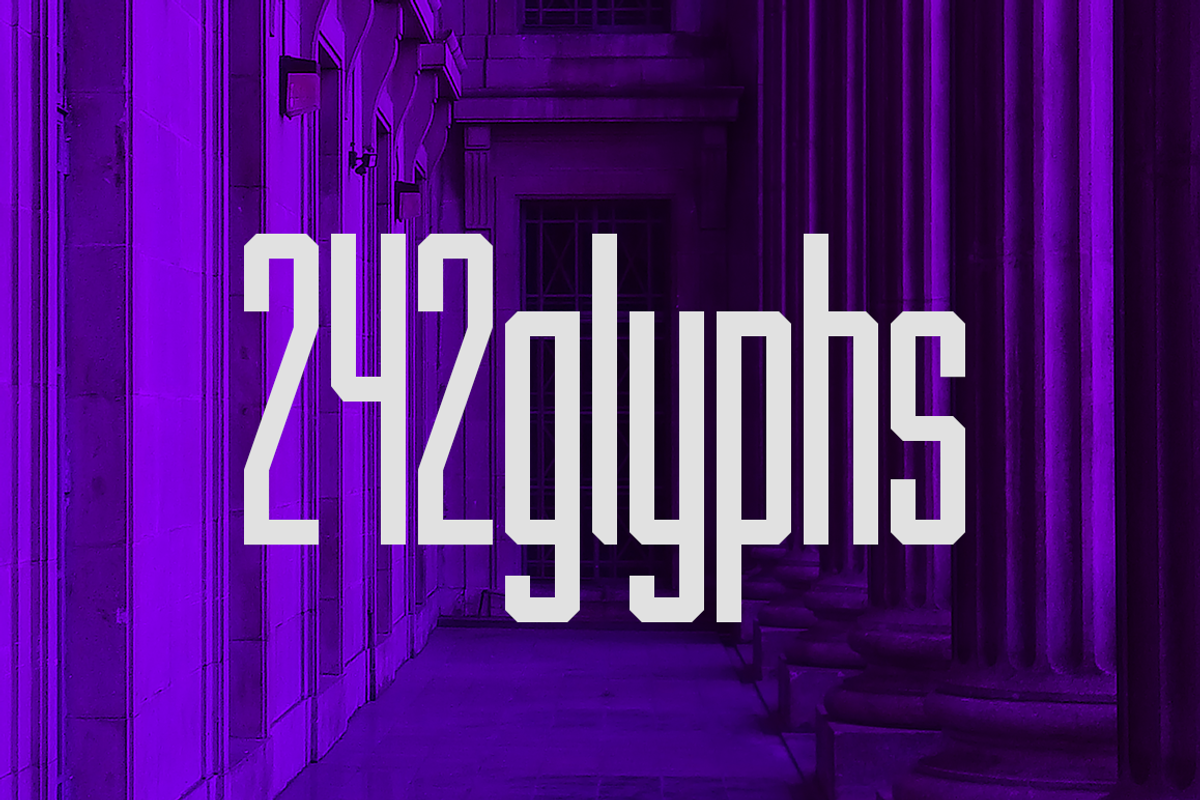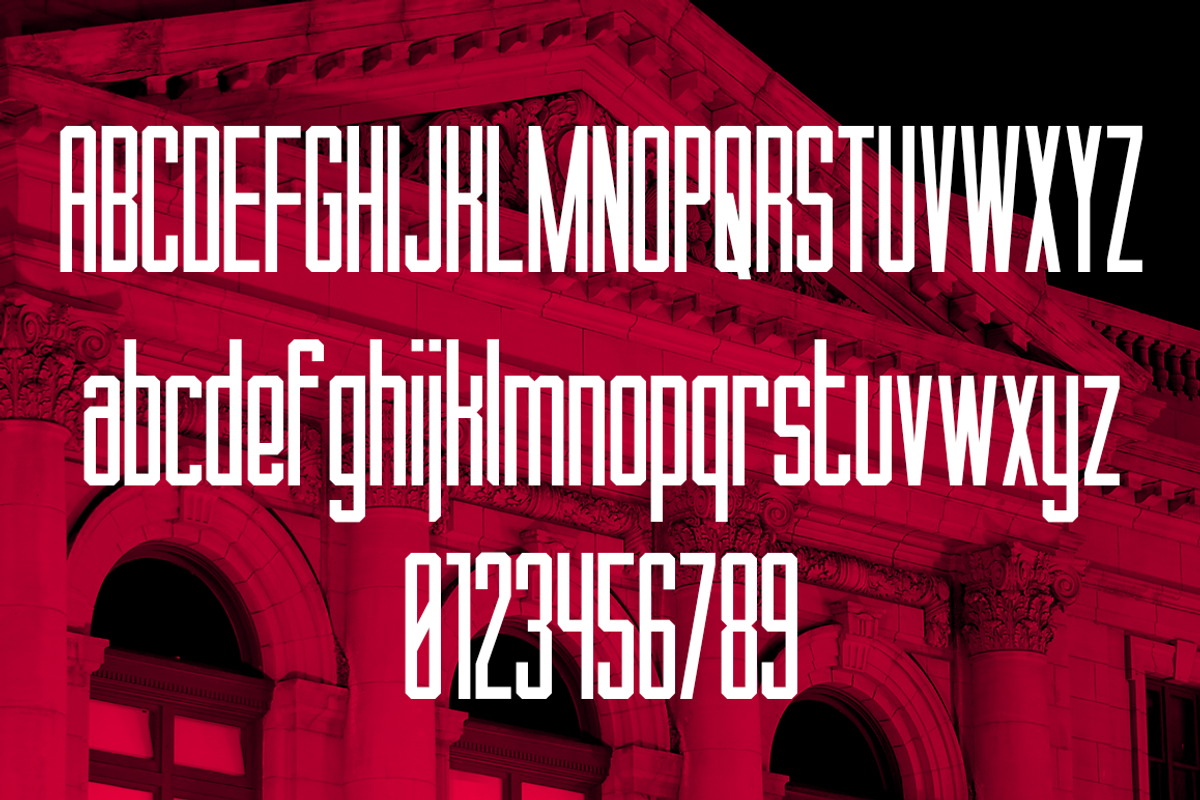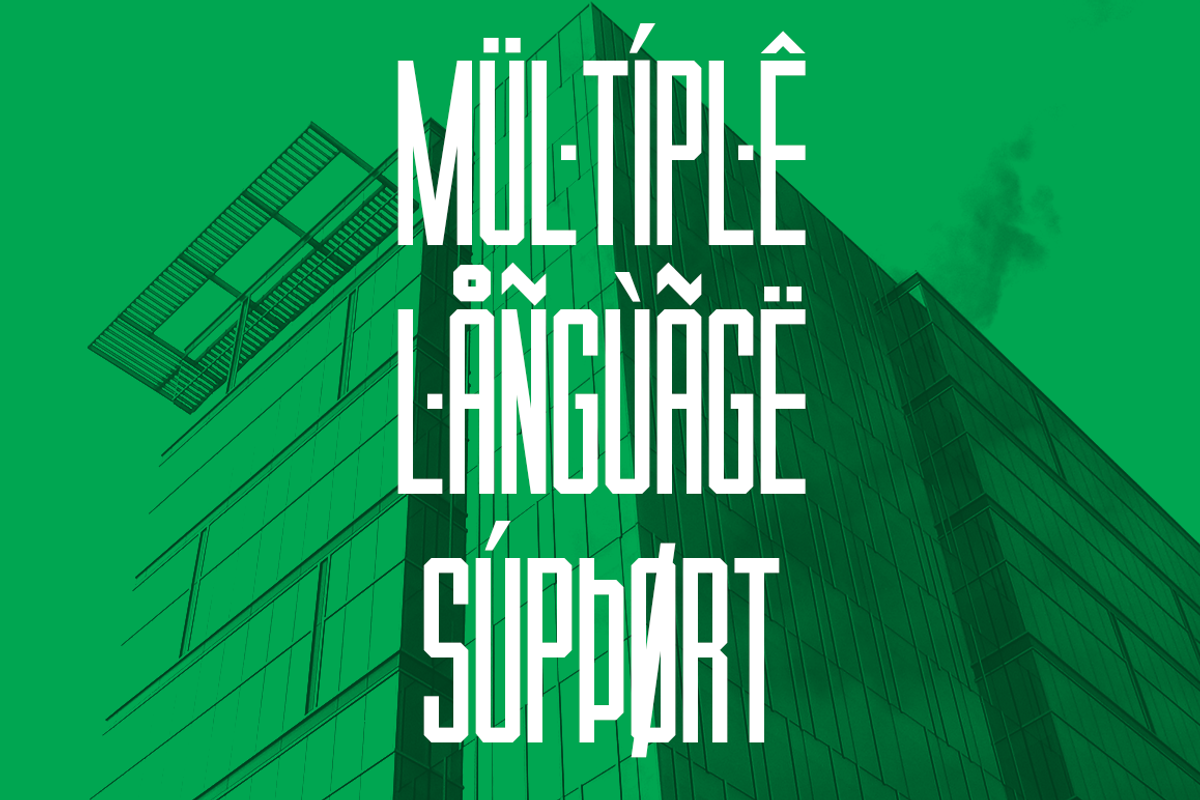
Pillar Typeface
Pillar Typeface by Loshaj Creative is a font selected for branding, posters, packaging, typography.
- The font contains 242 glyphs which include: uppercase and lowercase letters, numbers, symbols, accented characters, and ligatures.
- Most of the characters are based on the same rectangle and therefore contain the same width which displays symmetry.
Why Pillar Typeface is worth a look
Pillar Typeface by Loshaj Creative fits naturally into Branding, posters, packaging, typography.